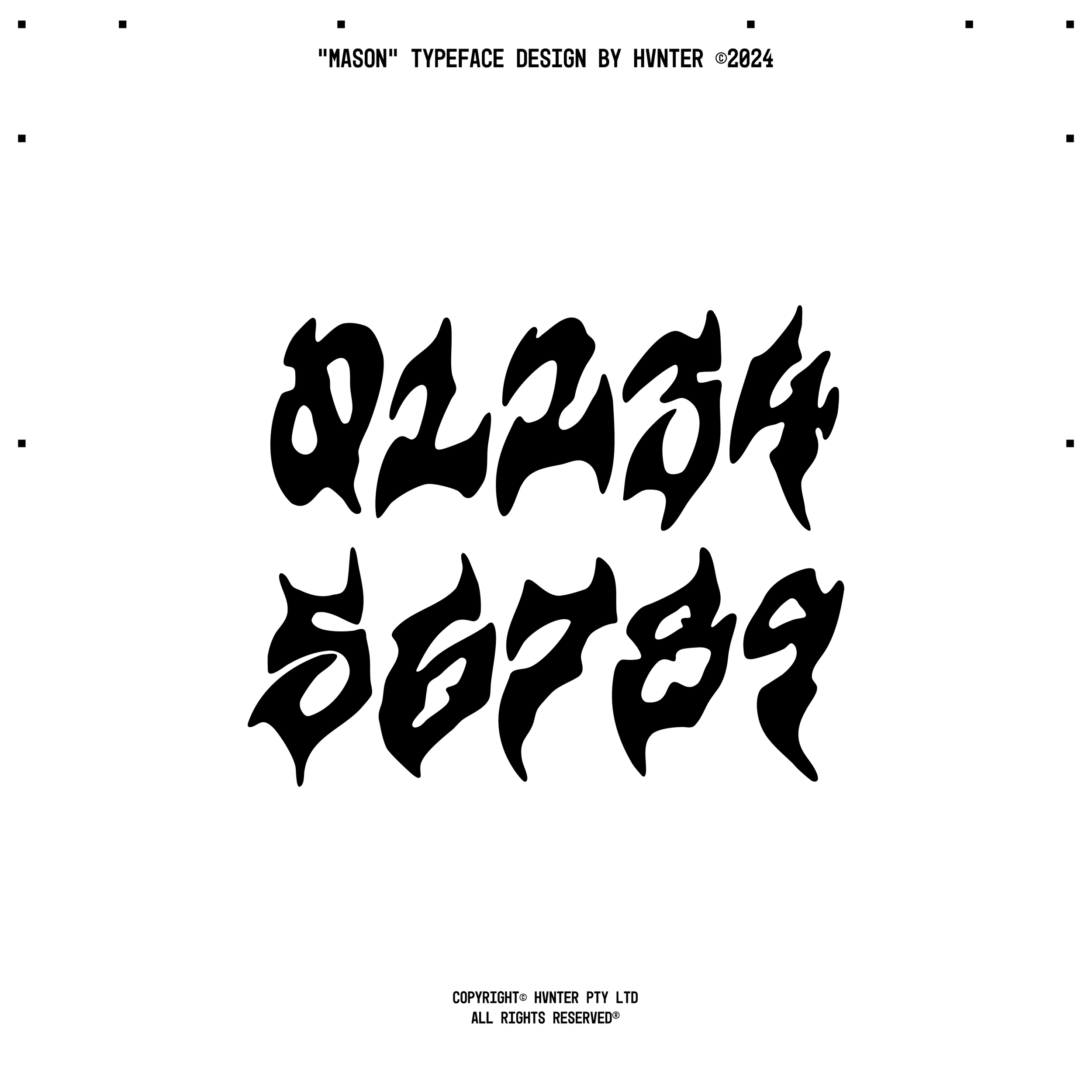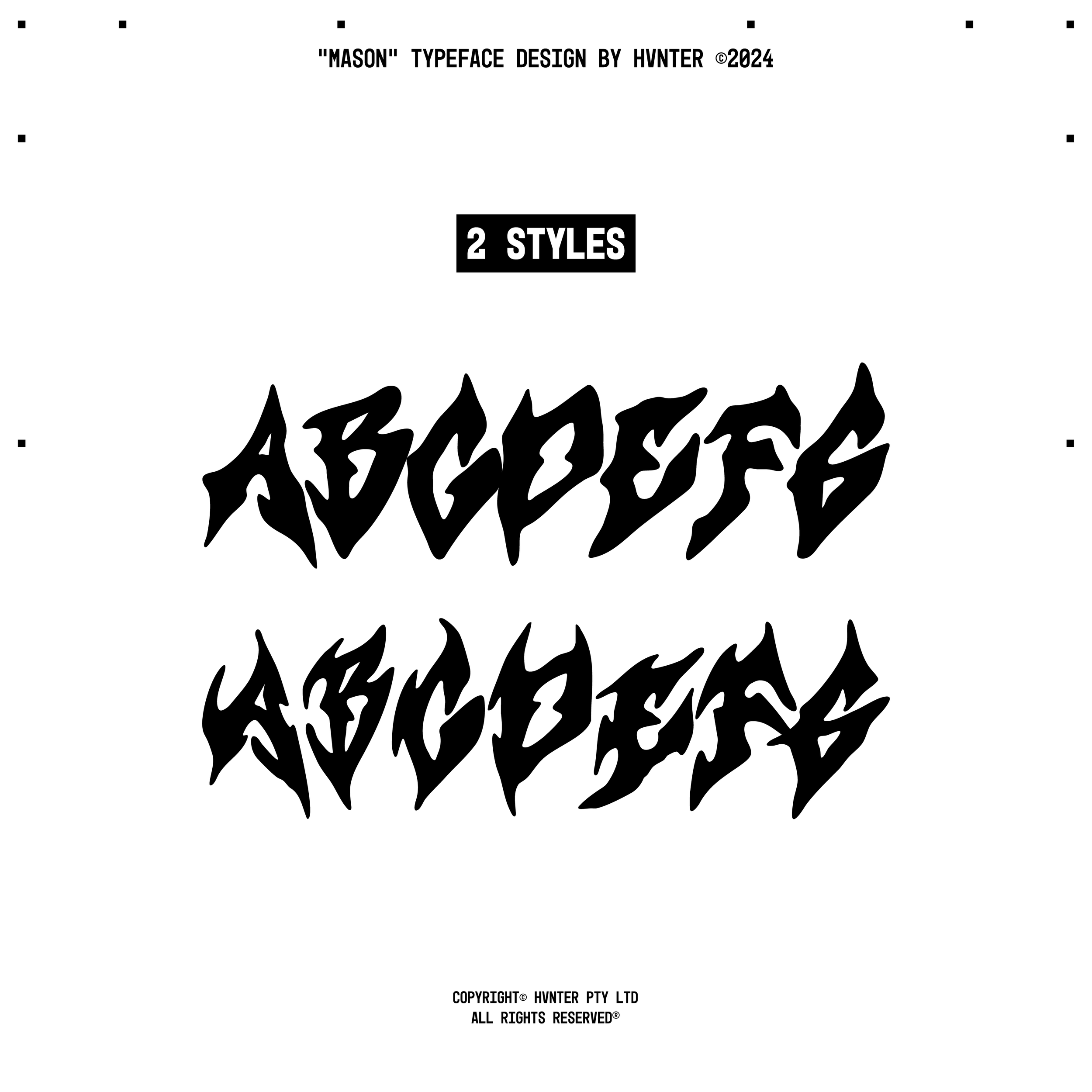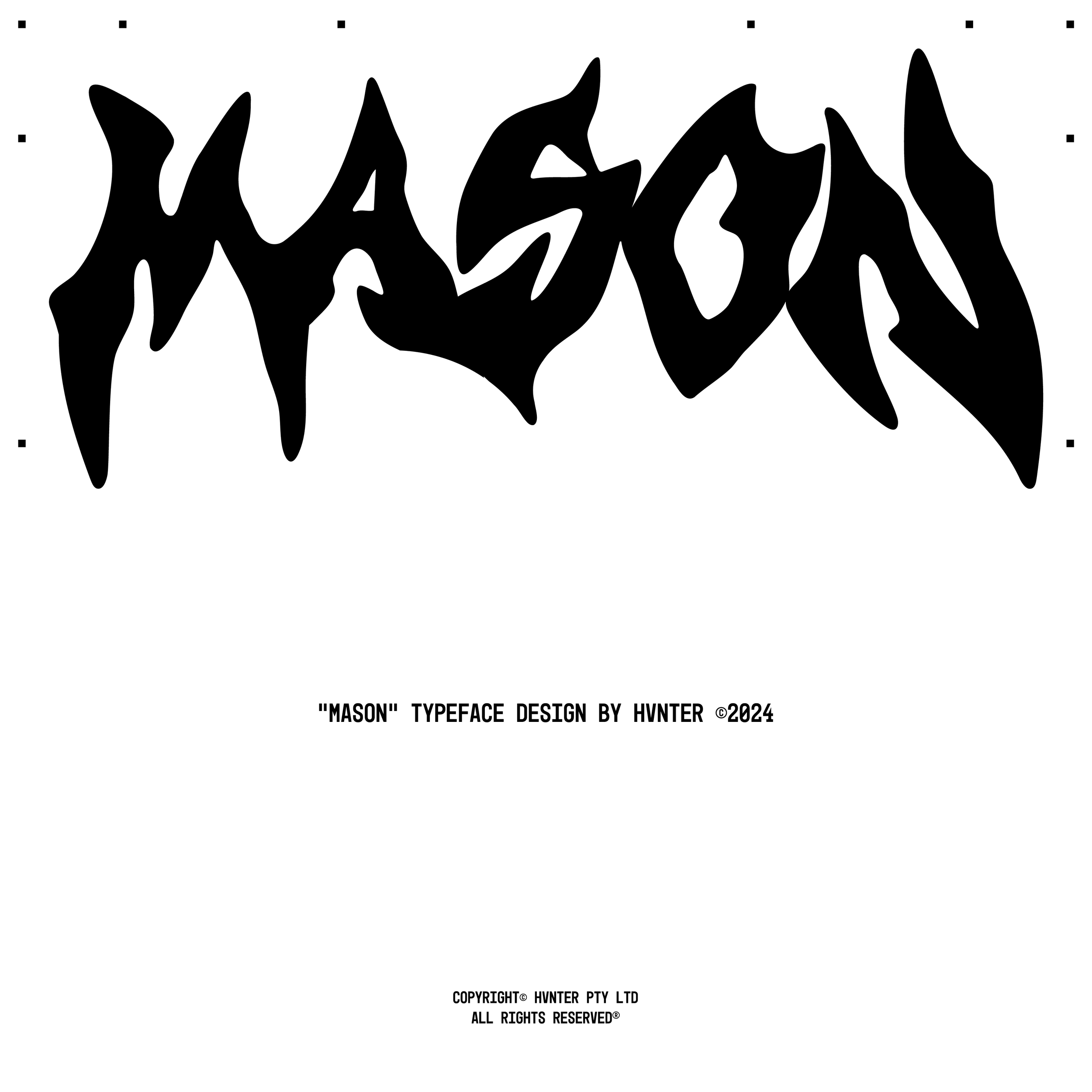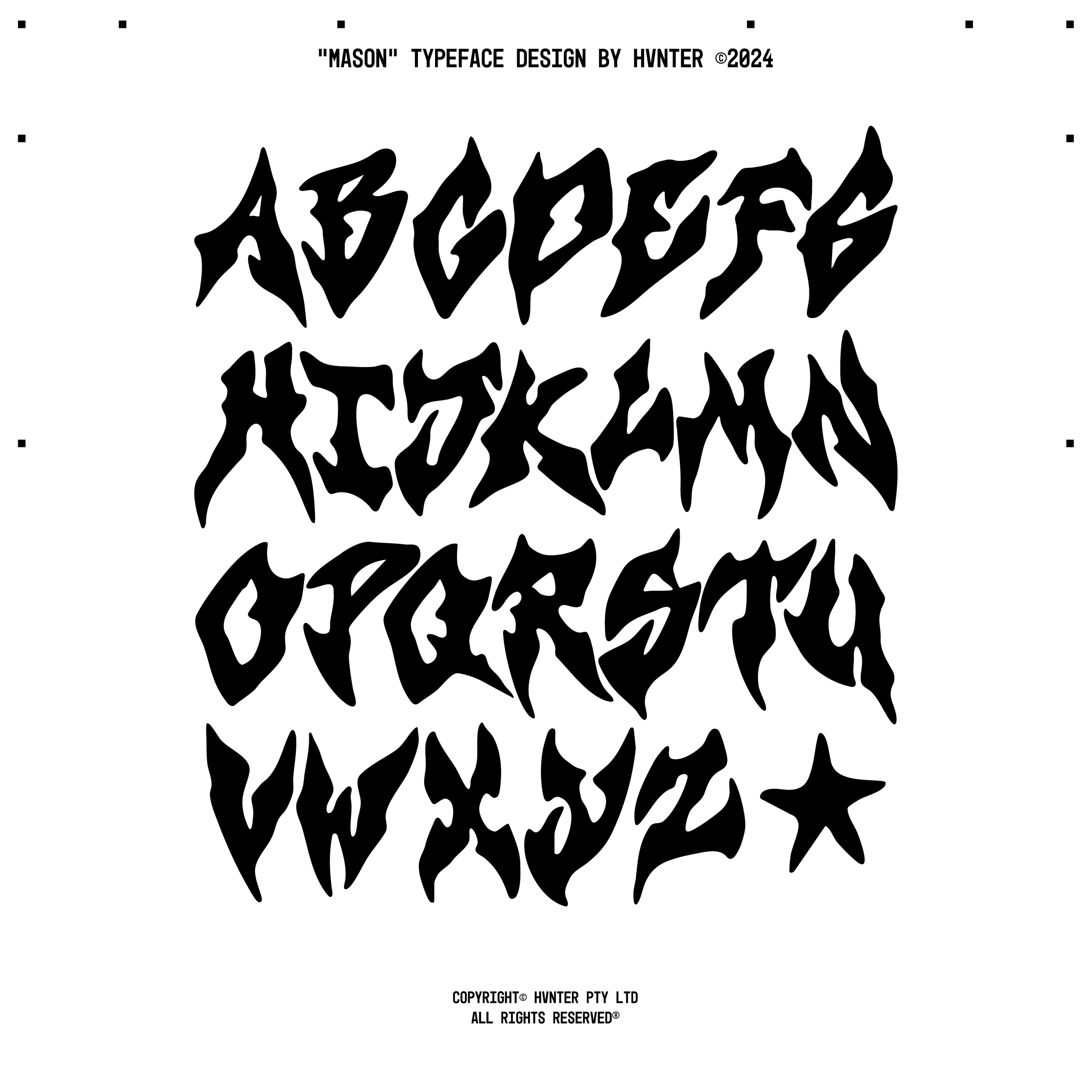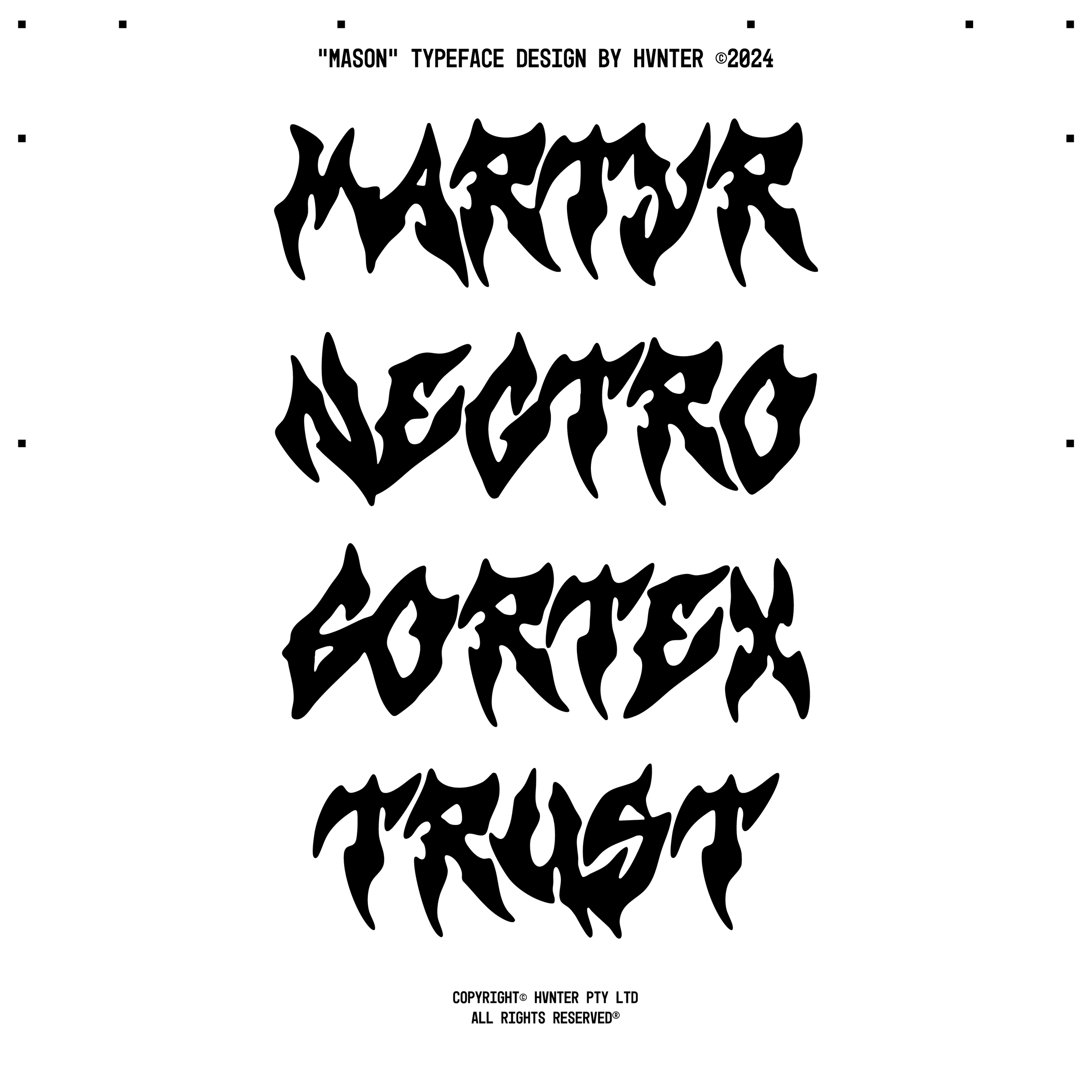
ALL PRODUCTS › Mason Typeface $15.00 Hand drawn, soft metal typeface.Includes 2 styles: A-Z, 0-9For Personal & Commercial use :D Hand drawn, soft metal typeface.Includes 2 styles: A-Z, 0-9For Personal & Commercial use :D Purchase Added! Reviews Reviewer Name Review Date Star Rating Description Posted on Etsy Product Show More You Might Also Like Altoma Typeface $15.00 Vacene Typeface $15.00 STOCK Typeface $15.00 Mend Typeface $25.00 HV Wins $15.00